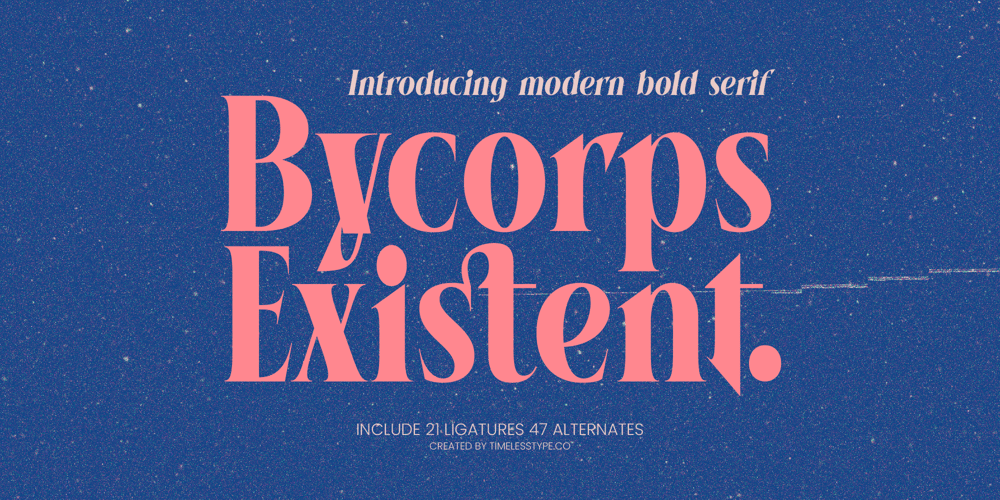
Bycorps Existent Font Family was designed by Heru Utama Putra and published by Timelesstype Studio. Bycorps Existent contains 2 styles and family package options. Bycorps Existent – Modern Bold Serif , from Timelesstype, Suitable for any projects such as: logos, branding projects, homeware designs, product packaging, mugs, quotes, posters, shopping bags, t-shirts, book covers, name card, invitation cards, greeting cards, label, photography, watermark, special events, and all your other luxury and beautiful projects that need a Luxury Serif taste.